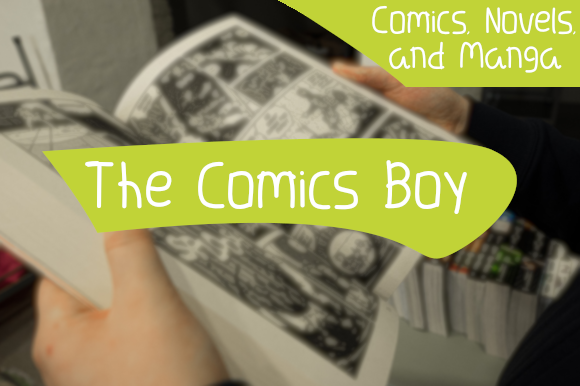
Font name: | The Comics Boy |
Author: | Chandra Chandro |
This font created for comics, manga, or anything that you think is suitable. This font also can be using for sticker and logo. For commercial license ==> https://shrinke.me/7X6Cu Thank you. |